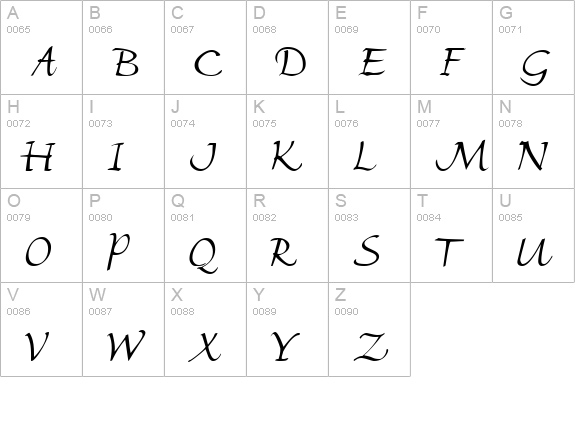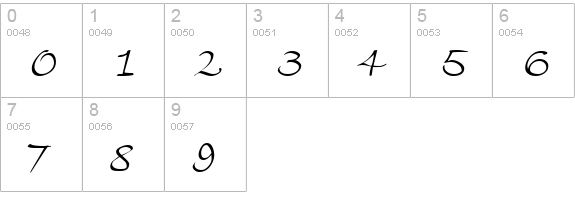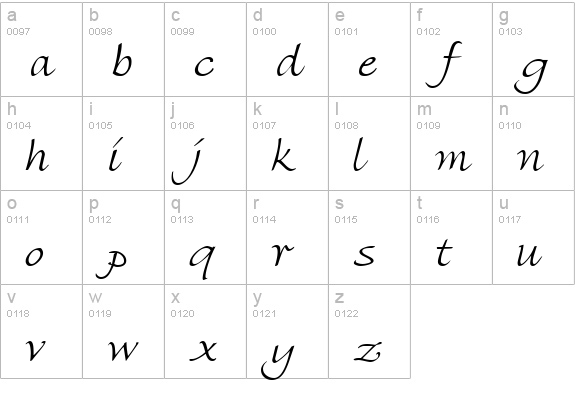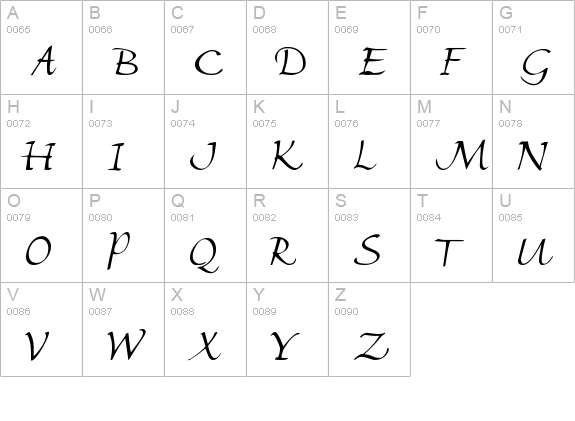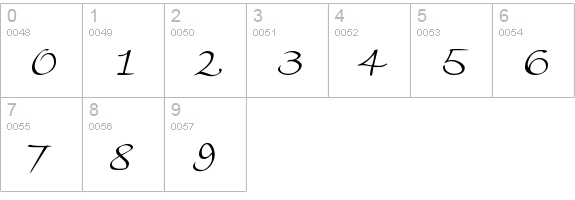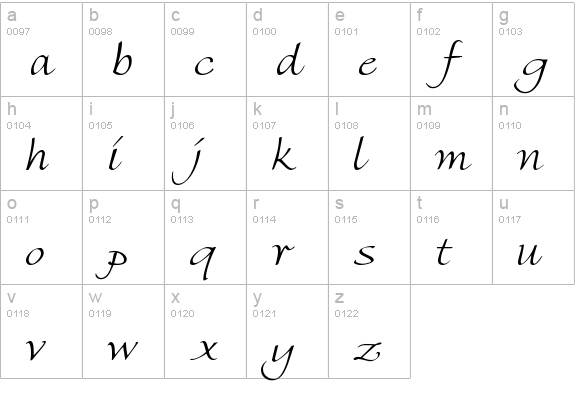
Florentine Regular Font Details
Florentine Regular is the standard, neutral variant in the Florentine typeface family \xE2\x80\x94 well suited to general body text, paragraphs, and standard typographic work.
Florentine Regular is a timeless and elegant typeface that exudes sophistication and class. With its classic serifs and delicate lines, this font is perfect for adding a touch of refinement to any project. Whether you're designing a wedding invitation, a logo, or a business card, Florentine Regular will bring a sense of grace and style to your work. What makes Florentine Regular even more appealing is that it is completely free to download. You can easily access this stunning font at FontsMarket.com, where you can enhance your design projects without any cost. Don't miss out on the opportunity to elevate your work with the beauty and charm of Florentine Regular. Download it today and add a touch of sophistication to your designs.